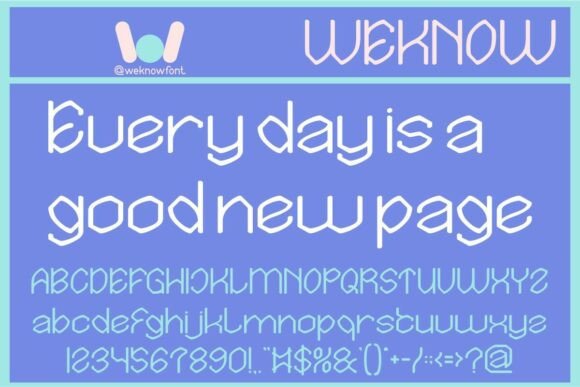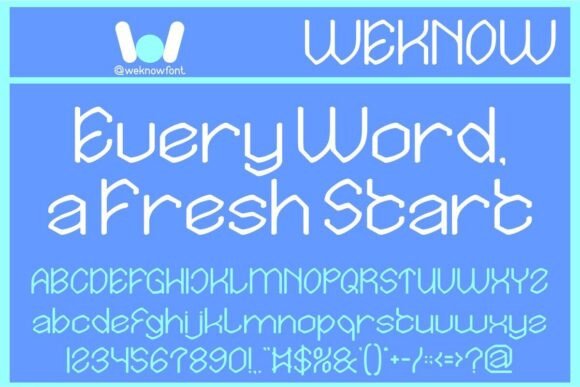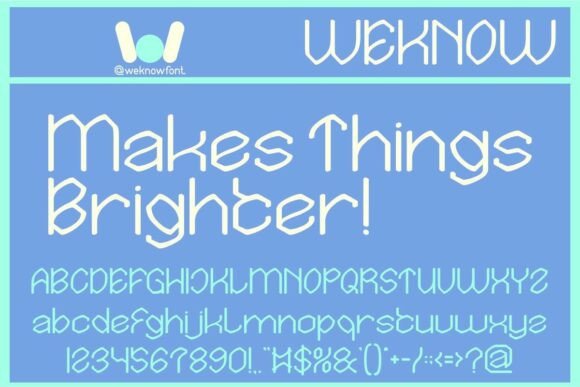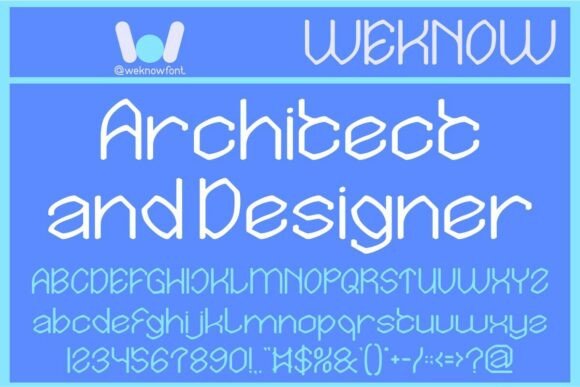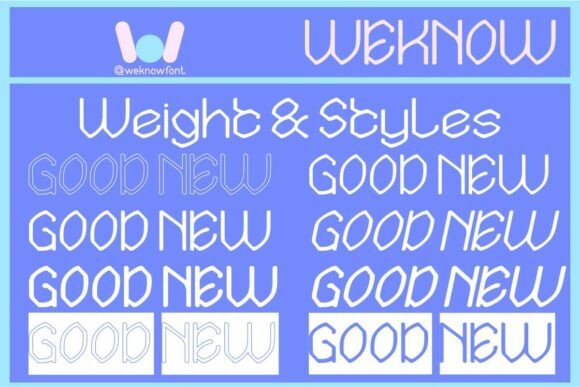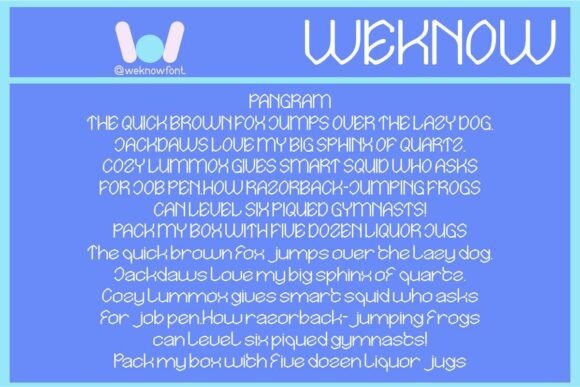
Introduction to Good New Font
Discover the versatility of Good New, a distinctive font where handwritten expression meets geometric structure.
This rounded, modular typeface blends casual script influences with a retro-techno aesthetic, making it ideal for building a memorable visual identity Whether applied to logos, headlines, or corporate branding, it offers a playful yet professional tone.
Key Features of Good New Font
Why Choose Good New Font?